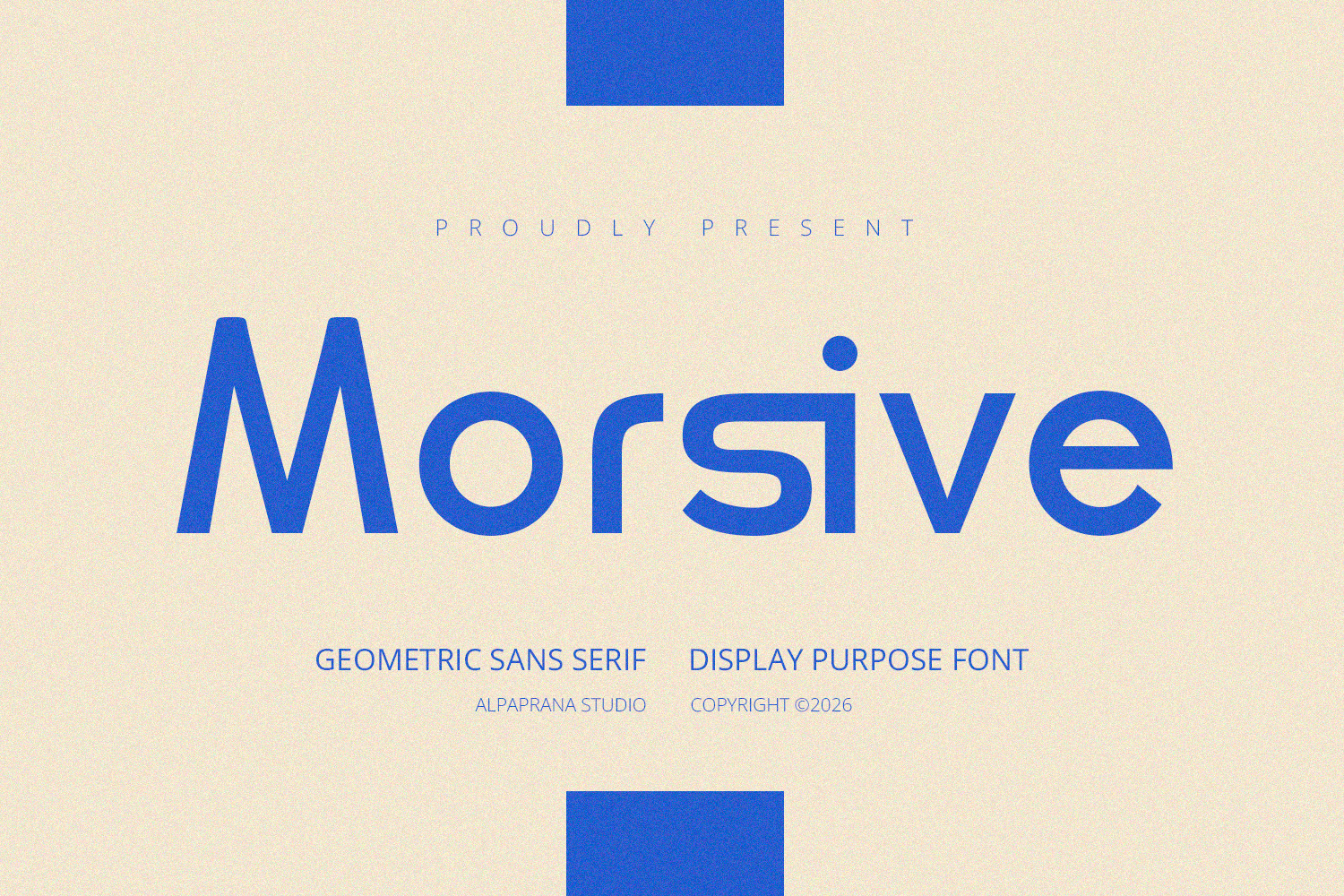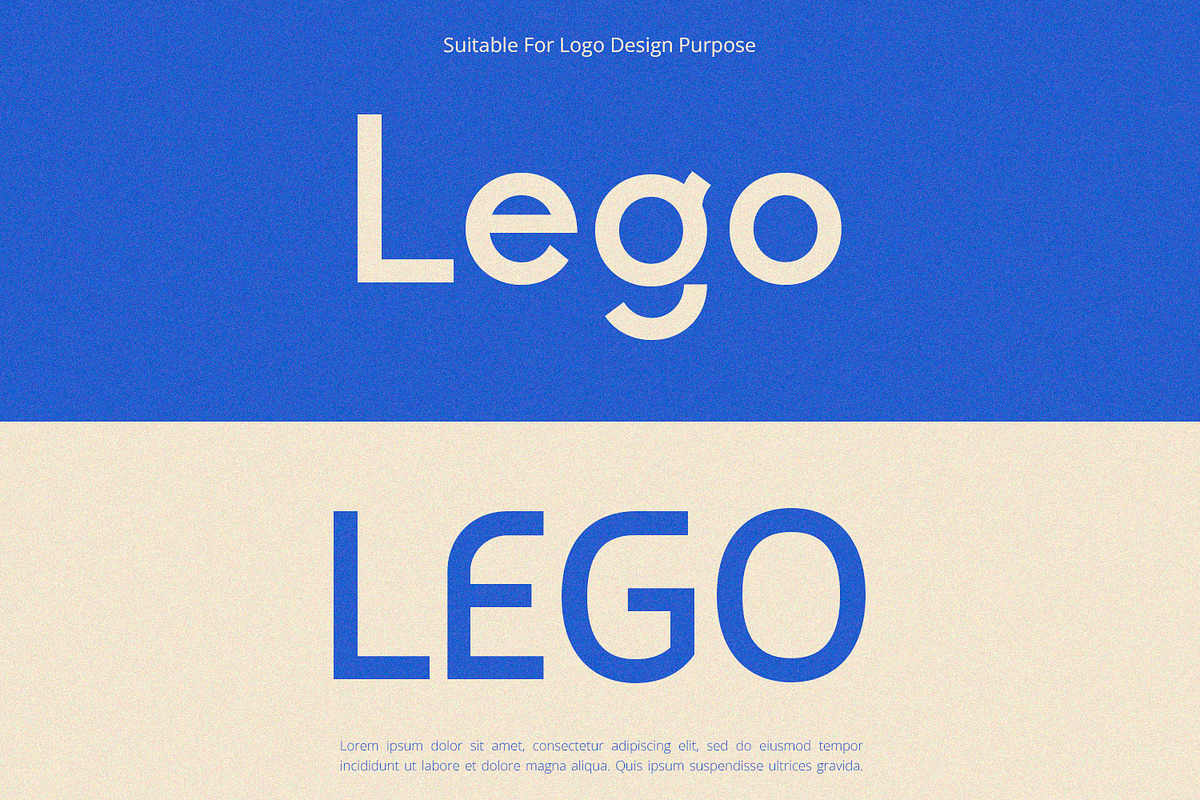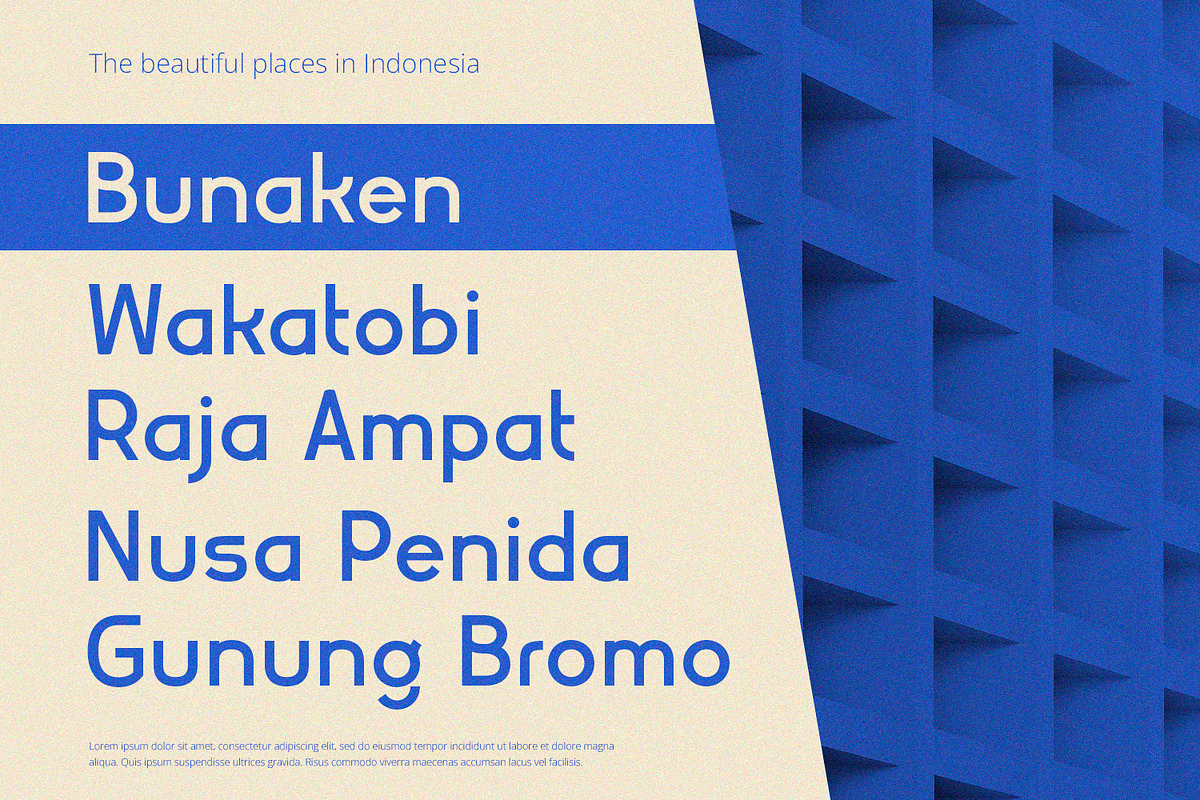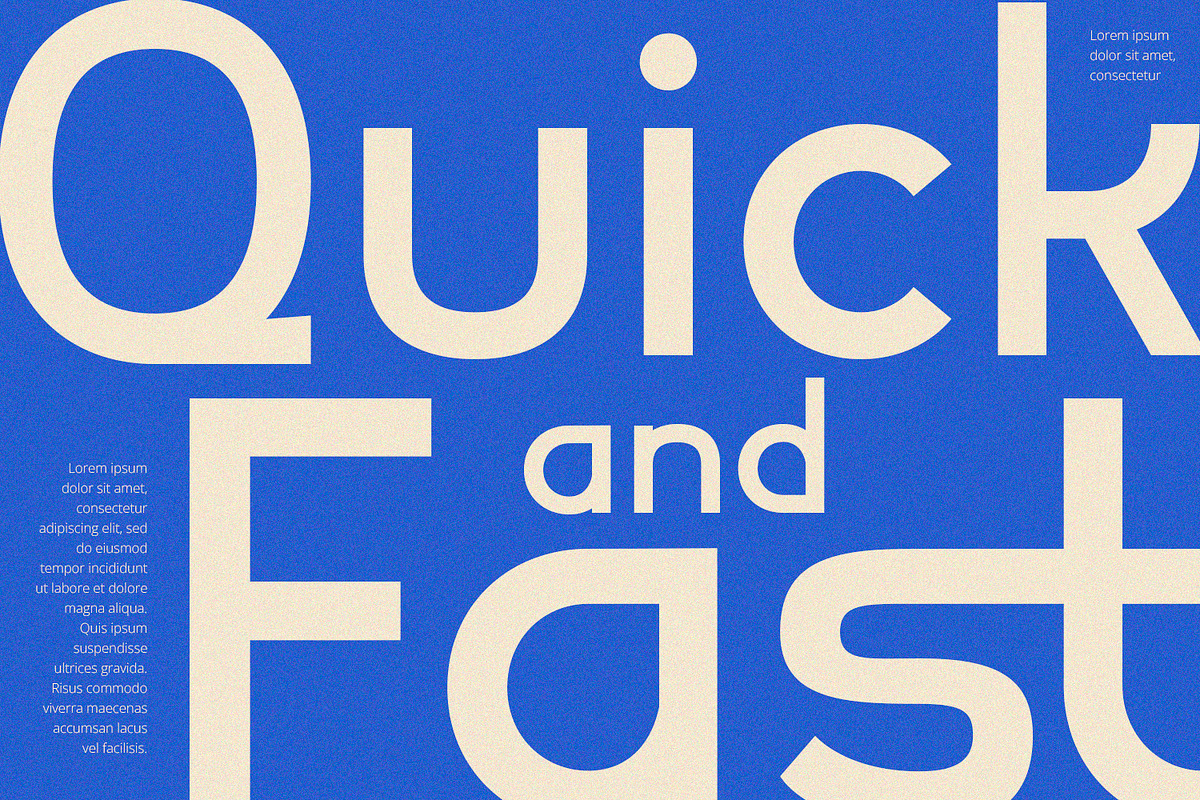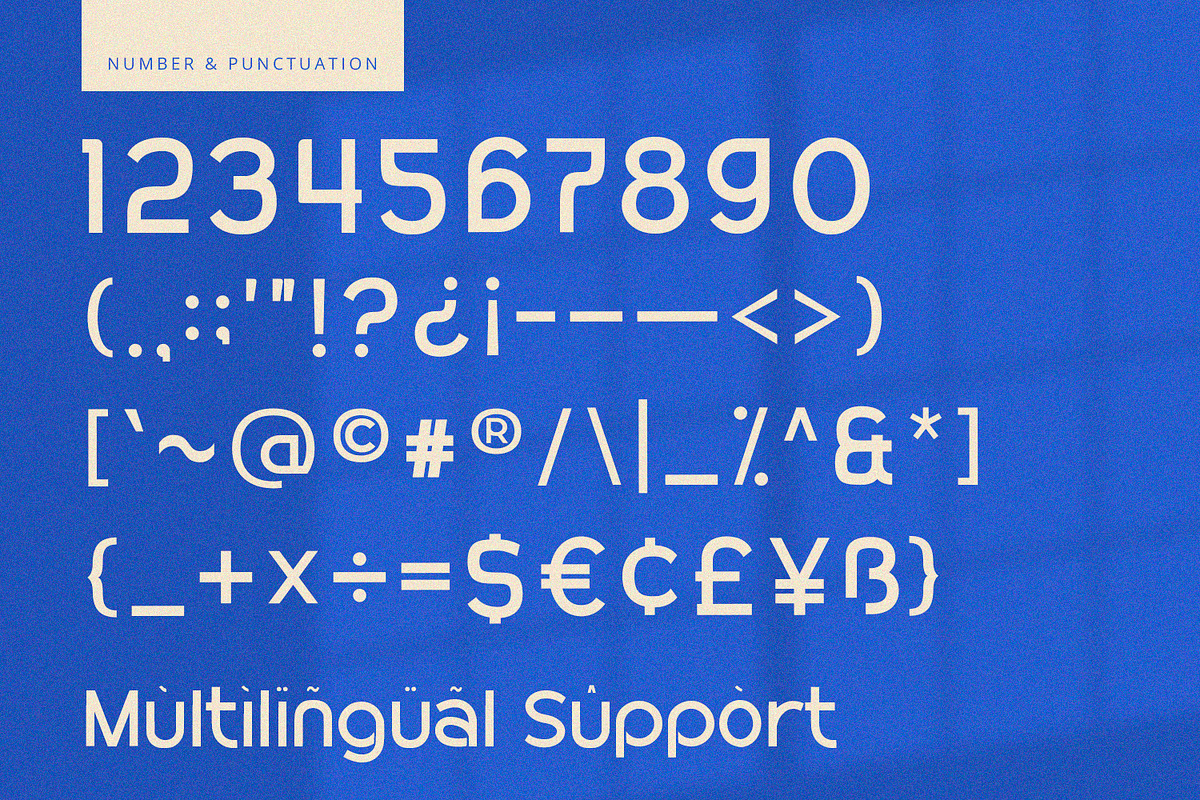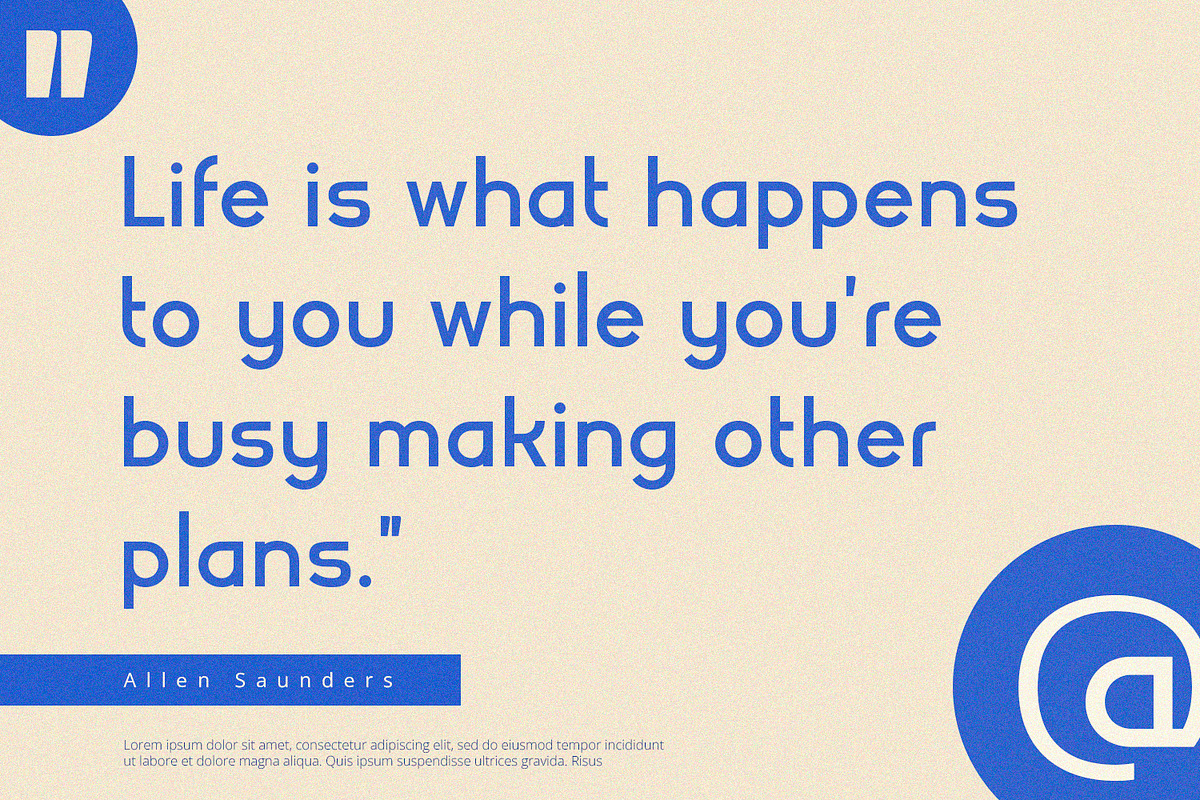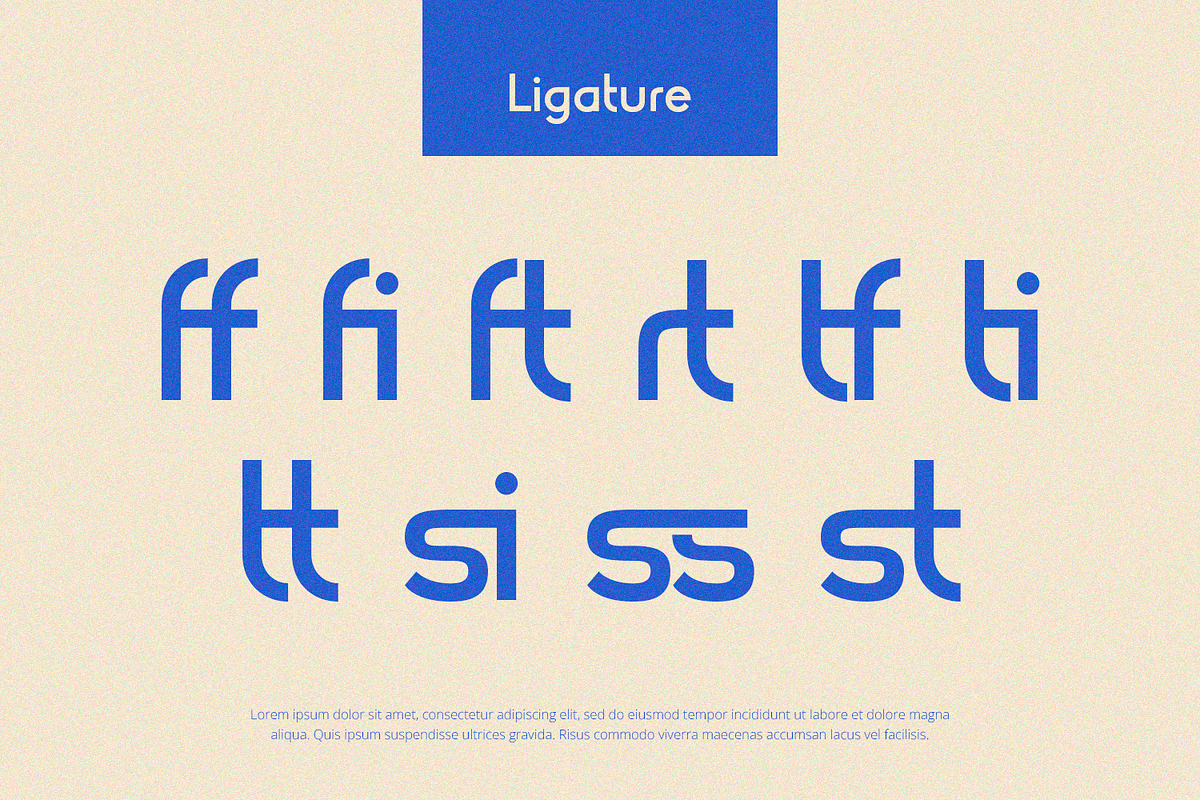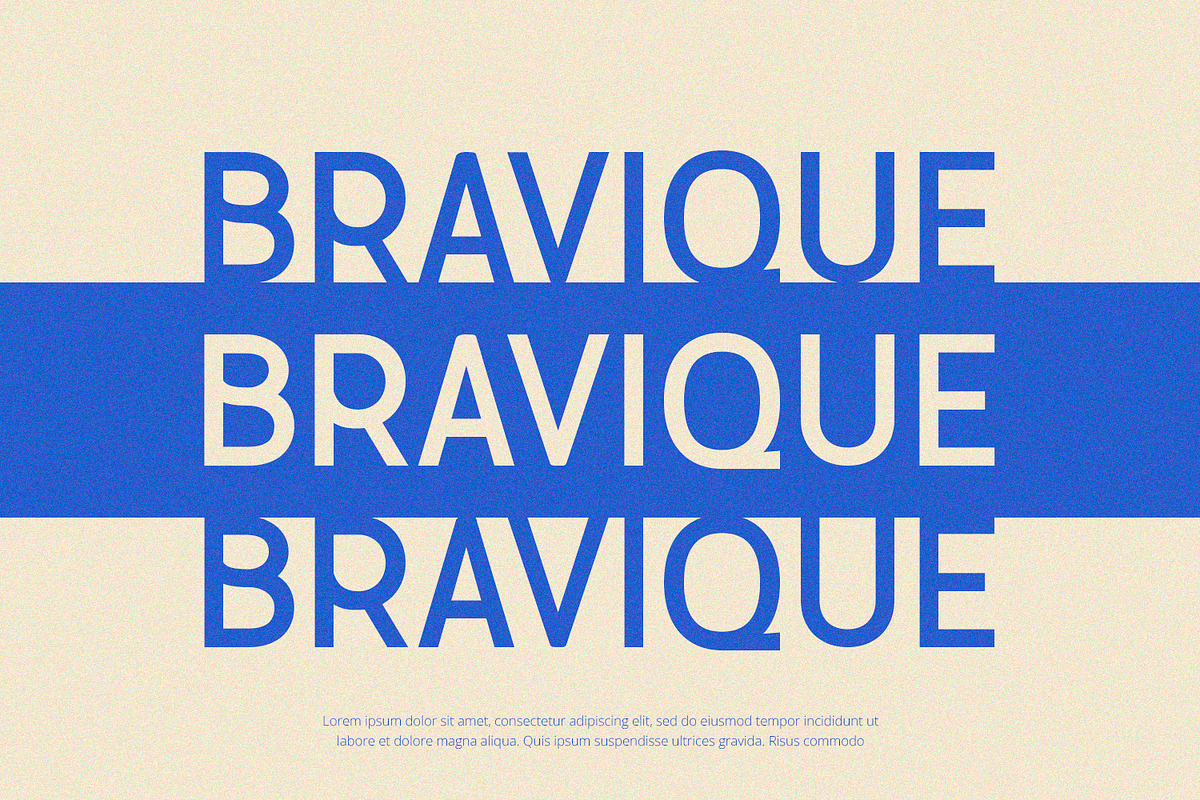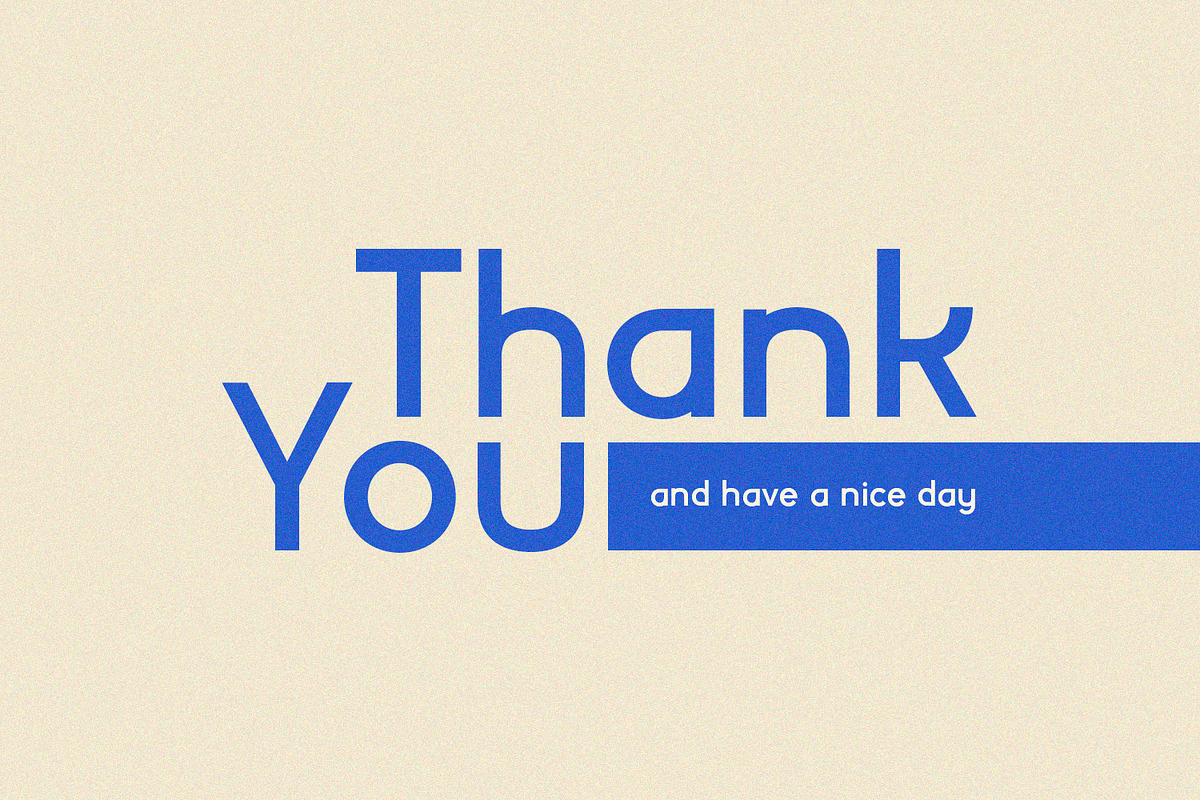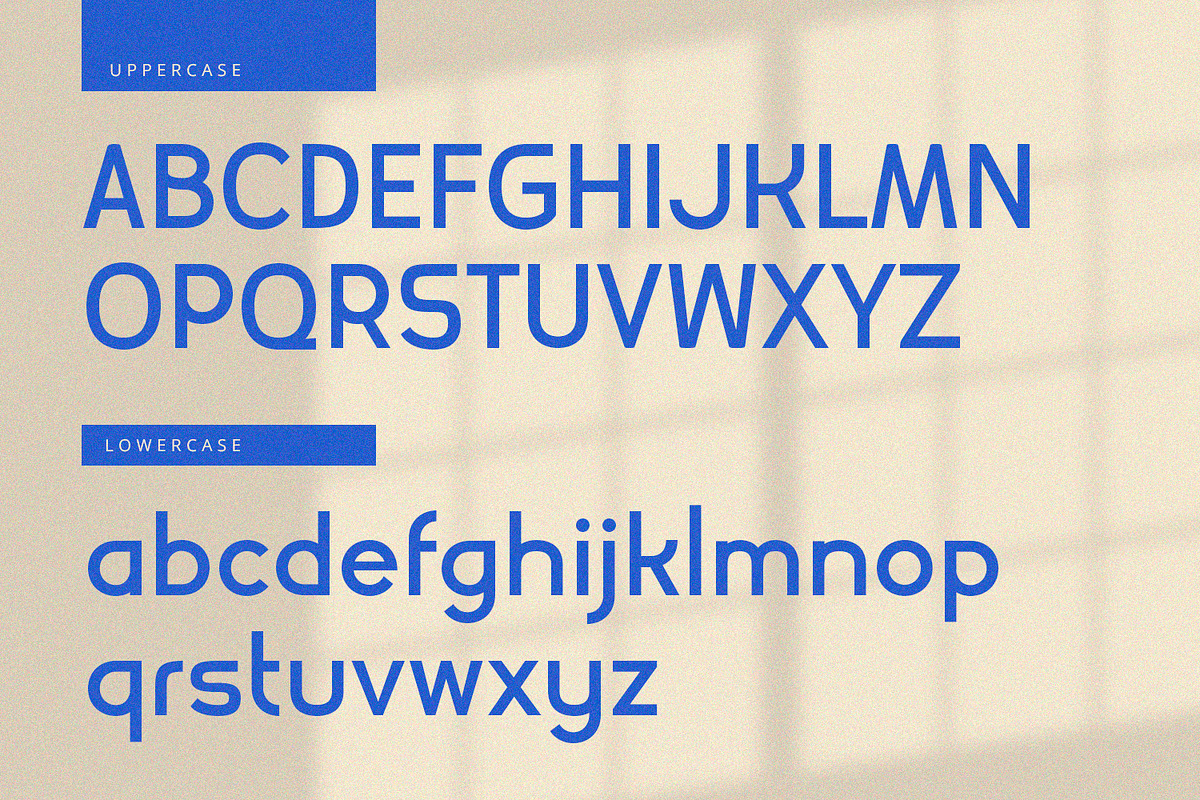
Morsive - Display Font
Morsive is display font with modern feels. It will be perfectly used for Branding, Logo Design, Lettering, Logotype, Clothing, Poster, magazine, packaging, posters, shopping bags, t-shirts, book covers, photography, special events and other design project.